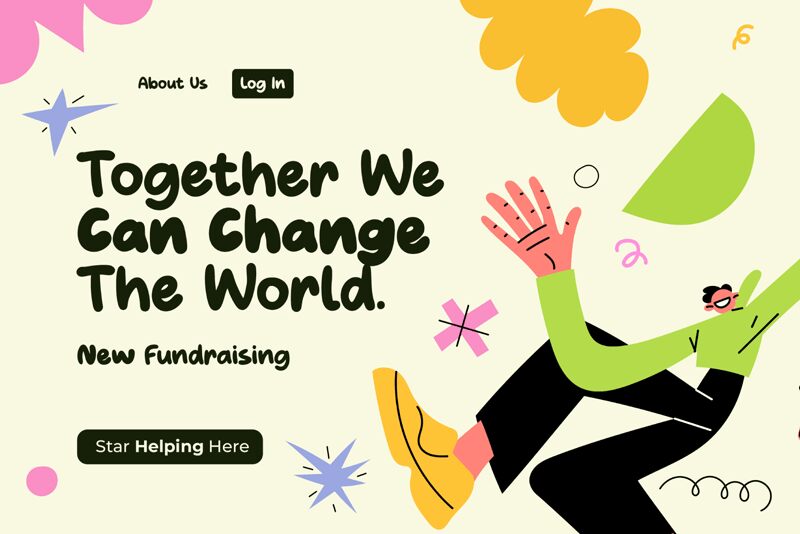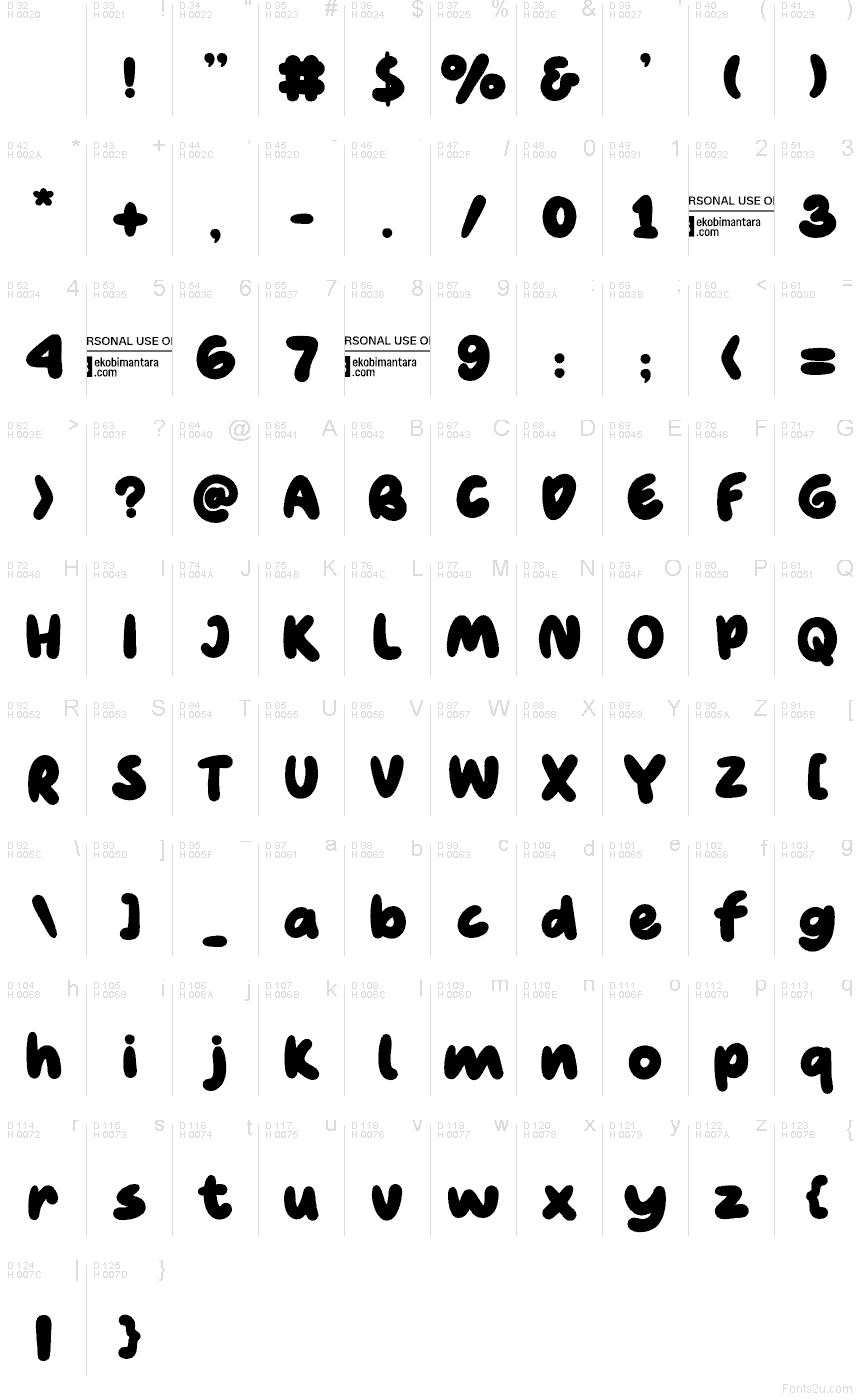
Kidmania Trial Bold
Kidmania Bold font by Eko Bimantara is a free brush marker typeface with big, bouncy energy that feels straight out of a kid’s sketchbook. The chunky, rounded strokes look inky and hand-drawn, with just enough wobble to feel playful but still super readable. Letters sit snugly together like building blocks, giving headlines a friendly, squishy presence that instantly says “made for kids.”
Using Kidmania Bold, you can bring warm, approachable character to children’s book covers, birthday invitations, toy packaging, classroom posters, kids’ apps, and playful brand logos. This free font shines when it’s large and loud, letting those thick curves and soft edges really show. For longer text, pair Kidmania from the same family with a simple geometric sans serif to keep everything clear while the titles do the smiling.